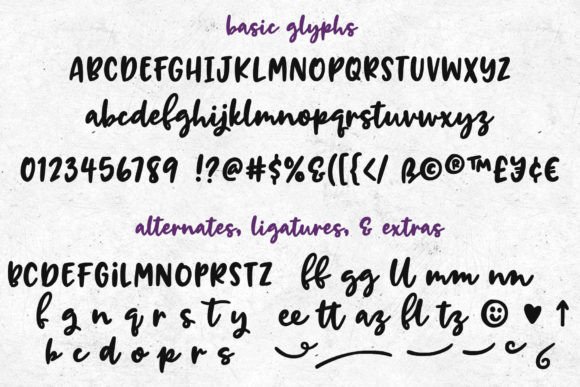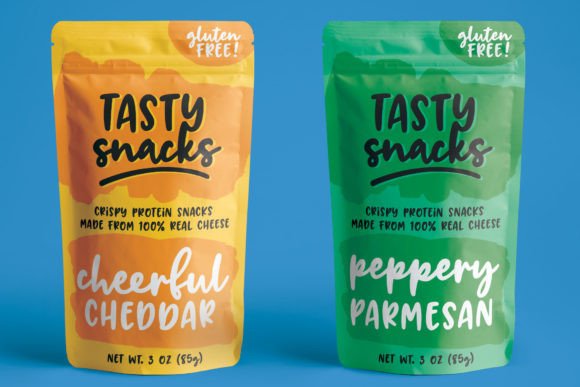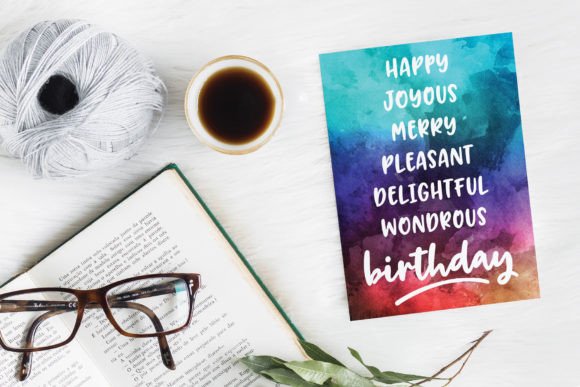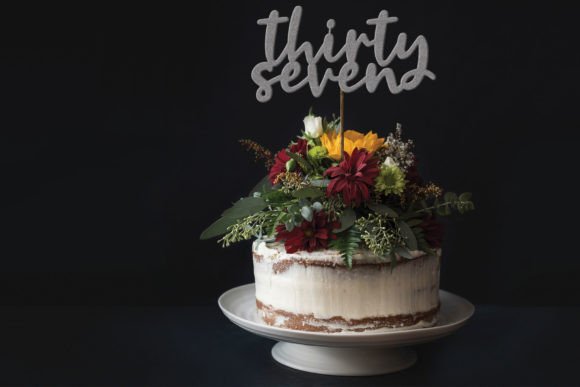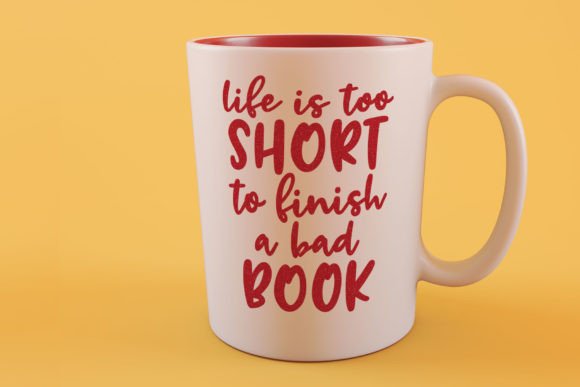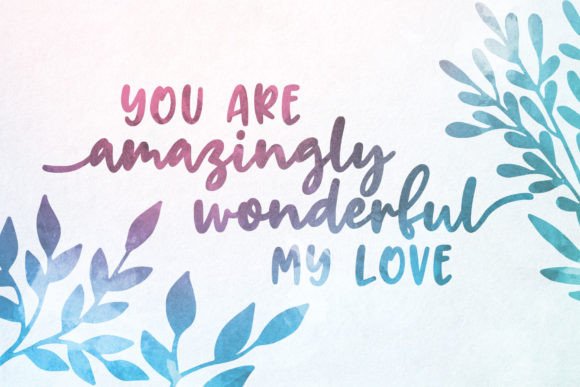
Have you ever found yourself in the midst of a project, only to realize that the perfect font is nowhere to be found? For me, that moment came when I was creating a cake topper mockup. I needed a thick script font to top off the design, but nothing seemed quite right. That’s when the creative spark struck – I decided to create my own font!
Introducing the Breaking Bread Font, a unique combination of heavy connecting script and hand-lettered sans-serif uppercase letters. This versatile font can be used in all lowercase, all uppercase, and title case with ease, making it perfect for a wide range of designs. With a variety of alternates, ligatures, and swashes, you can add a truly hand-written touch to your work.
The Breaking Bread Font is a valuable tool for designers, offering a wide range of creative possibilities. From crafting a custom mug or t-shirt to creating a logo or product packaging, this font has got you covered. And with over 300 extended Latin characters for language support, you can use it for projects in multiple languages.
Breaking Bread Font Key Features
- Unique Characteristics: A modern, elegant script font with a hand-written feel, perfect for wedding invitations, menus, and other creative projects
Breaking Bread Font Review
Breaking Bread is a unique and eclectic font that catches the eye. ✨ The mix of modern and vintage elements gives it a fascinating personality, making it perfect for designs that need a dash of quirkiness. ✨ The font’s versatility is another major plus, allowing users to style it in a variety of ways.
- Unique blend of modern and vintage elements
- Versatile and easy to style
- Perfect for designs that need a touch of quirkiness
However, Breaking Bread also has its limitations. ⚠️ The font may not be the best choice for designs that require a clean and minimalist aesthetic. ⚠️ Additionally, some letters may appear slightly irregular, which can be distracting in certain contexts.
- May not be suitable for minimalist designs
- Irregular letterforms can be distracting
Overall, I think Breaking Bread is a great addition to any designer’s toolkit. While it may not be perfect for every project, its unique charm and versatility make it a great choice for designs that need a little something extra. With some careful styling, Breaking Bread can add a lot of personality to a project.
Breaking Bread Font is ideal for use in creative projects such as:
Food and beverage branding
Restaurant and cafe menus
Food blog and recipe websites